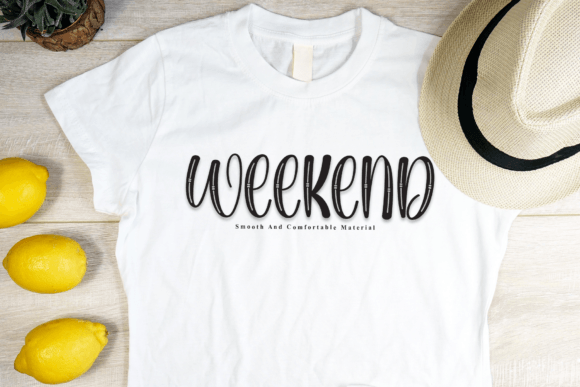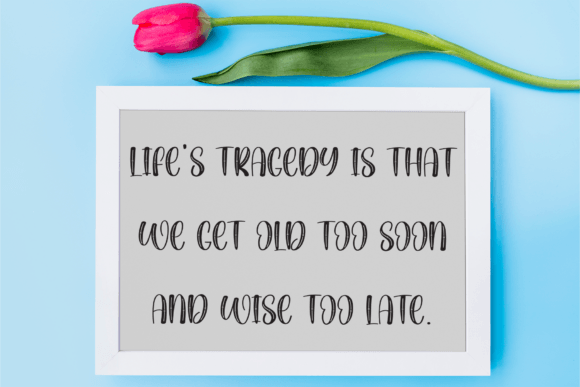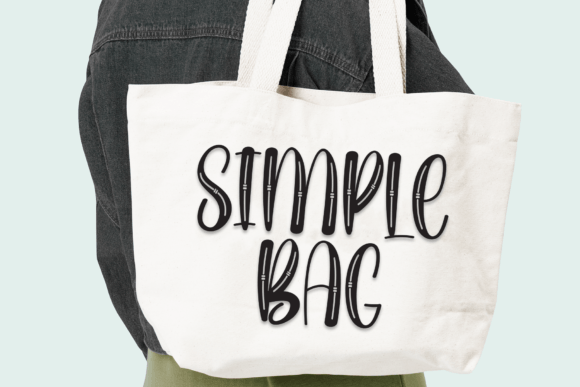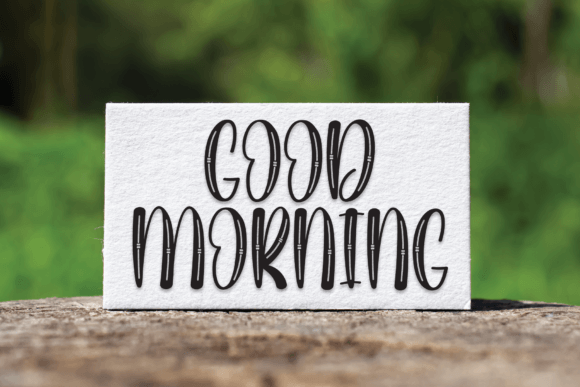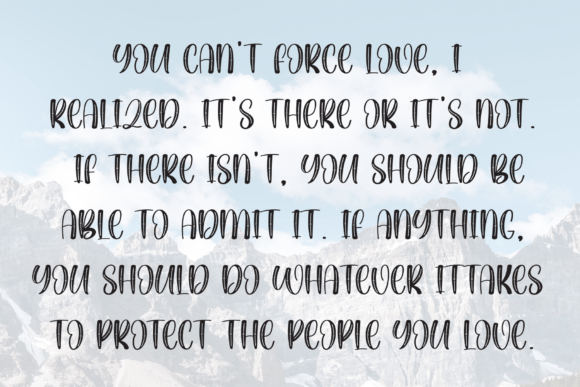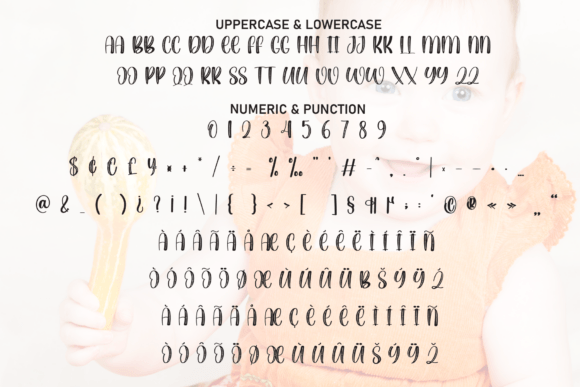
The Joy of Designing for Little Ones
Have you ever been browsing through a children’s book or scrolling through social media and come across a design that just makes you smile? For me, it’s the little details that make all the difference – the playful fonts, the colorful illustrations, and the way the designer has captured the magic of childhood. It’s moments like these that remind me of the importance of using the right font in our designs.
That’s why I’m excited to introduce you to the Baby Delight Font, a cute and playful display font that’s perfect for anything related to babies or kids. Its soft, rounded letters make it a great choice for children’s books, party invitations, and playful designs. Whether you’re a seasoned designer or just starting out, the Baby Delight Font is a valuable addition to your toolkit, adding a fun touch to any project and making it a great choice for designers who want to create something truly special.
Baby Delight Font Key Features
- Unique Characteristics: Designed specifically for children’s products and nursery decorations, the Baby Delight font features rounded edges, soft curves, and playful letterforms.
- Font Styles: Available in 6 different font styles, including Regular, Bold, Italic, Bold Italic, and 2 ornamental styles
- Character Set: Includes a comprehensive set of characters, including uppercase and lowercase letters, numbers, punctuation marks, and special characters
Designer Review: Baby Delight Font
Overall, I think the Baby Delight font has some nice qualities, but it’s not without its limitations. Let’s start with the good stuff!
- Cute and playful vibe: This font is perfect for creating a whimsical atmosphere, especially for children’s products or nursery decor.
- Clear and legible: Despite its whimsical feel, Baby Delight remains easy to read and understand, even at smaller font sizes.
- Good contrast: The font has a nice balance of light and dark elements, making it suitable for various backgrounds and color schemes.
However, there are some things that don’t quite work as well:
- Limited character set: Baby Delight doesn’t have a comprehensive set of characters, which might make it less versatile for longer texts or complex content.
- Not ideal for body text: While it’s great for titles and headlines, Baby Delight might not be the best choice for large blocks of text due to its playful, cursive nature.
Overall, I think the Baby Delight font is a solid choice for projects where a cute, playful vibe is necessary. However, it’s essential to keep its limitations in mind when choosing it for your design projects.
Practical Application Guide for Baby Delight Font
To get the most out of the Baby Delight Font, use it for baby-related designs, such as invitations, nursery decor, and baby products. You can also use it for creative and playful projects, like greeting cards and party decorations.
The Baby Delight Font is perfect for projects that require a playful, whimsical, and childlike feel. Some common use cases include:
– Baby shower invitations and decorations
– Nursery decor and wall art
– Baby product labels and packaging
– Greeting cards and party decorations
Alternatives to Baby Delight Font
Great Vibes is a beautiful, handwritten font perfect for creating a whimsical and playful atmosphere. It’s ideal for use in greeting cards, invitations, and other creative projects where a personal touch is needed.
Compared to Baby Delight Font, Great Vibes has a more relaxed, casual feel and is often used for informal designs. While Baby Delight Font has a more elegant and sophisticated tone, Great Vibes is better suited for projects that require a more laid-back and friendly vibe.
Alex Brush is a elegant, handwritten font that exudes sophistication and refinement. It’s perfect for use in high-end designs, such as luxury branding, weddings, and other special occasions.